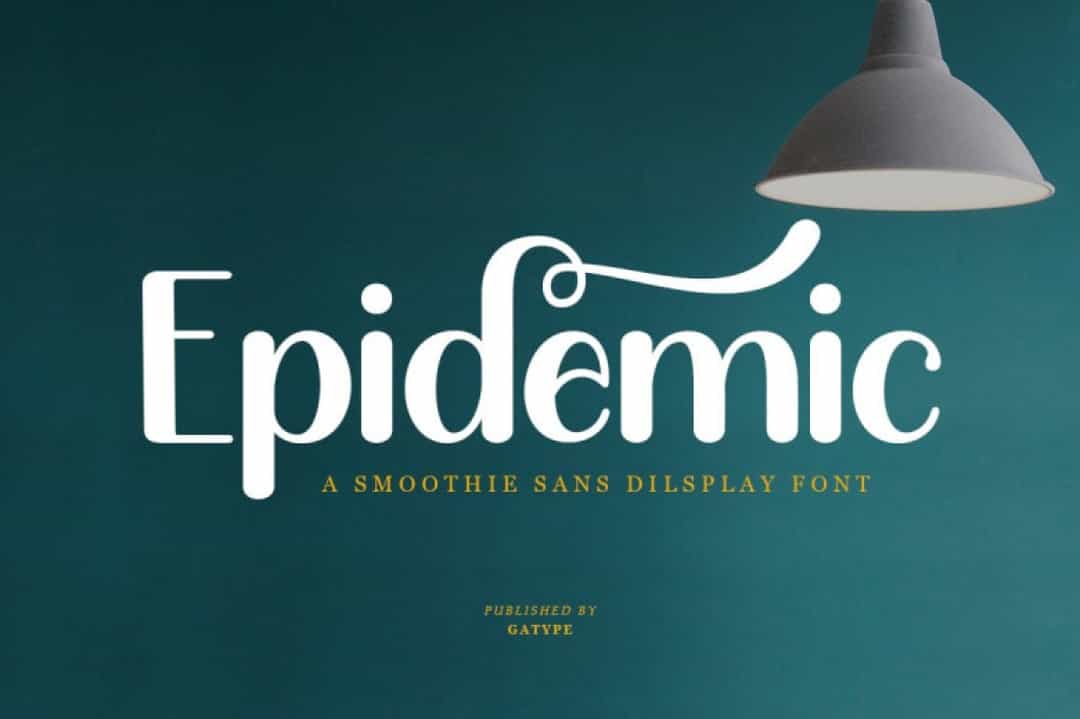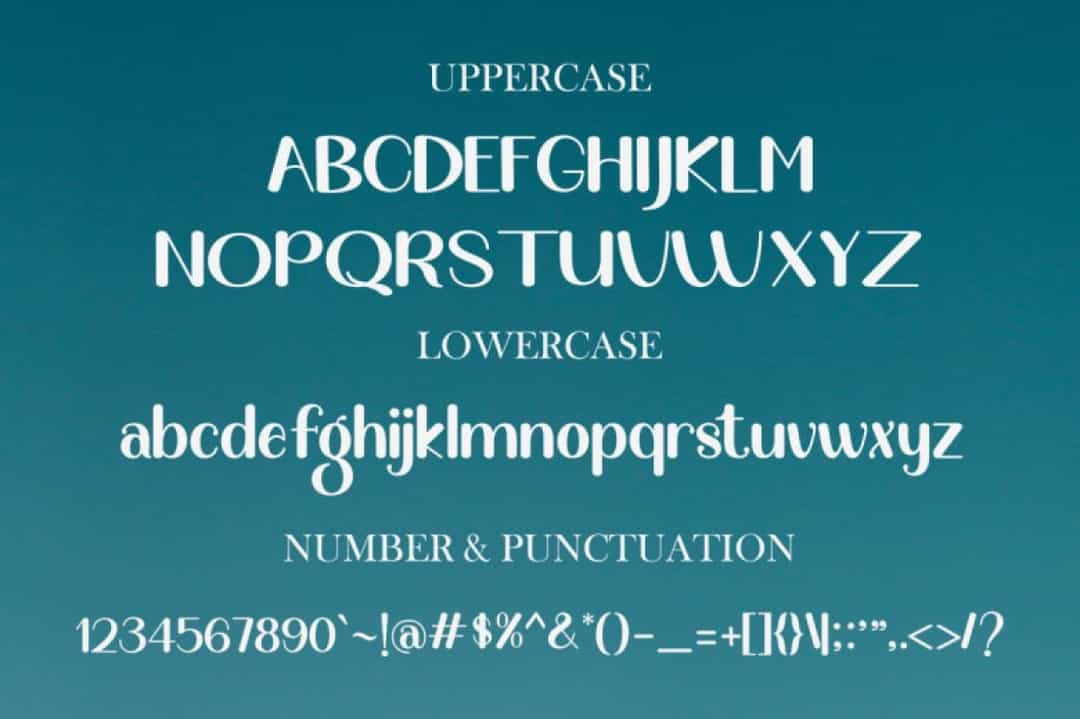
Epidemic is an eye-catching show typeface with a clean and distinct appearance that makes a bold statement. Customizable to fit many designs such as Valentines, Christmas themes, invitations, posters weddings branding projects tweets social media pages magazine covers etc.